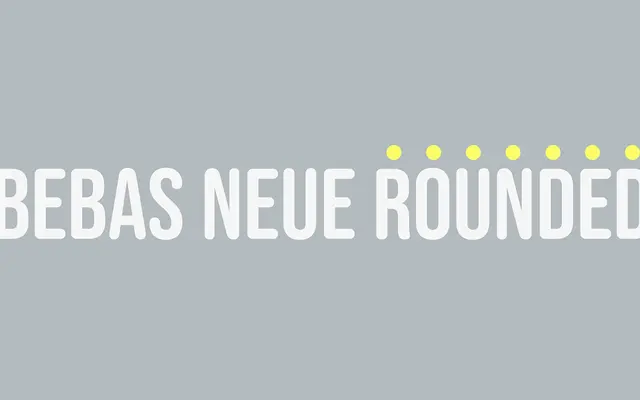
Bebas Neue Rounded
A rounded variant of Bebas Neue with softened terminals and corners, aimed at branding and packaging where the original's sharpness is too severe.
Built on the same core proportions as Bebas Neue, this version replaces hard corners and terminals with fully rounded forms to introduce a warmer, more approachable register. Dharma Type position it as softer than the intermediate Bebas Neue SemiRounded, making it the gentlest expression within the Bebas family. Suited to packaging, display headlines and brand identities that need the typeface's clean impact without its harder edge.
A display-weight all-caps geometric sans derived from Bebas Neue, distinguished by fully rounded terminals and corners that soften its otherwise rigid geometric structure.